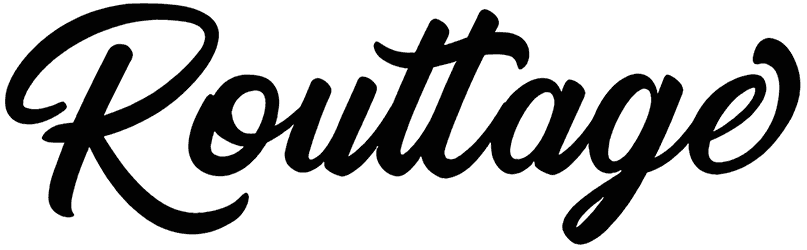
Routtage Font
Routledge is an art form of unique calligraphic fonts that captivates the eye and soul. Every line and font in this script font is well executed; sometimes, it is the designer’s skill.
This calligraphy font is full of character, from smooth strokes to delicate circles. Whether used for wedding invitations or branding materials, it adds a sense of sophistication that is hard to match with any other typeface.